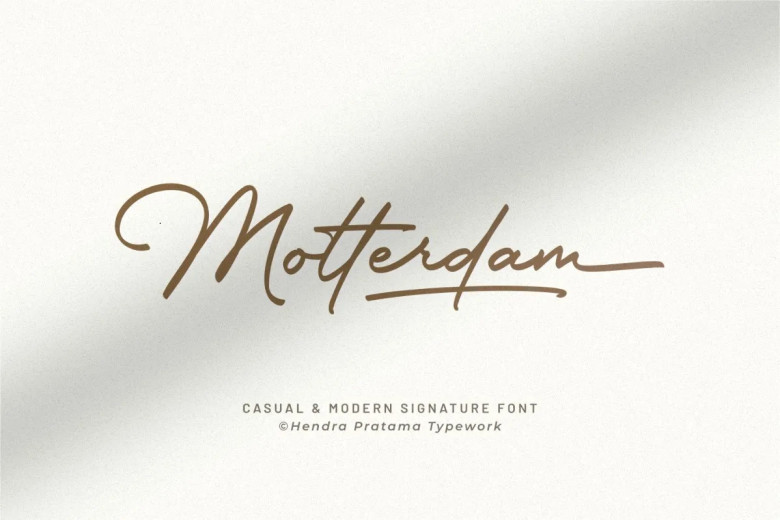
Motterdam Font
Motterdam can be best described as an exquisite handwriting signature font with an unnatural twist, designed to bring your creative ideas to life. Use Motterdam in all your most imaginative projects and witness them come to fruition! Perfect for branding purposes as well as business cards, social media weddings, t-shirt designs for weddings, magazine, covers logotype, fashion quotes watermarks invitations signatures.
Motterdam Signature Script Font